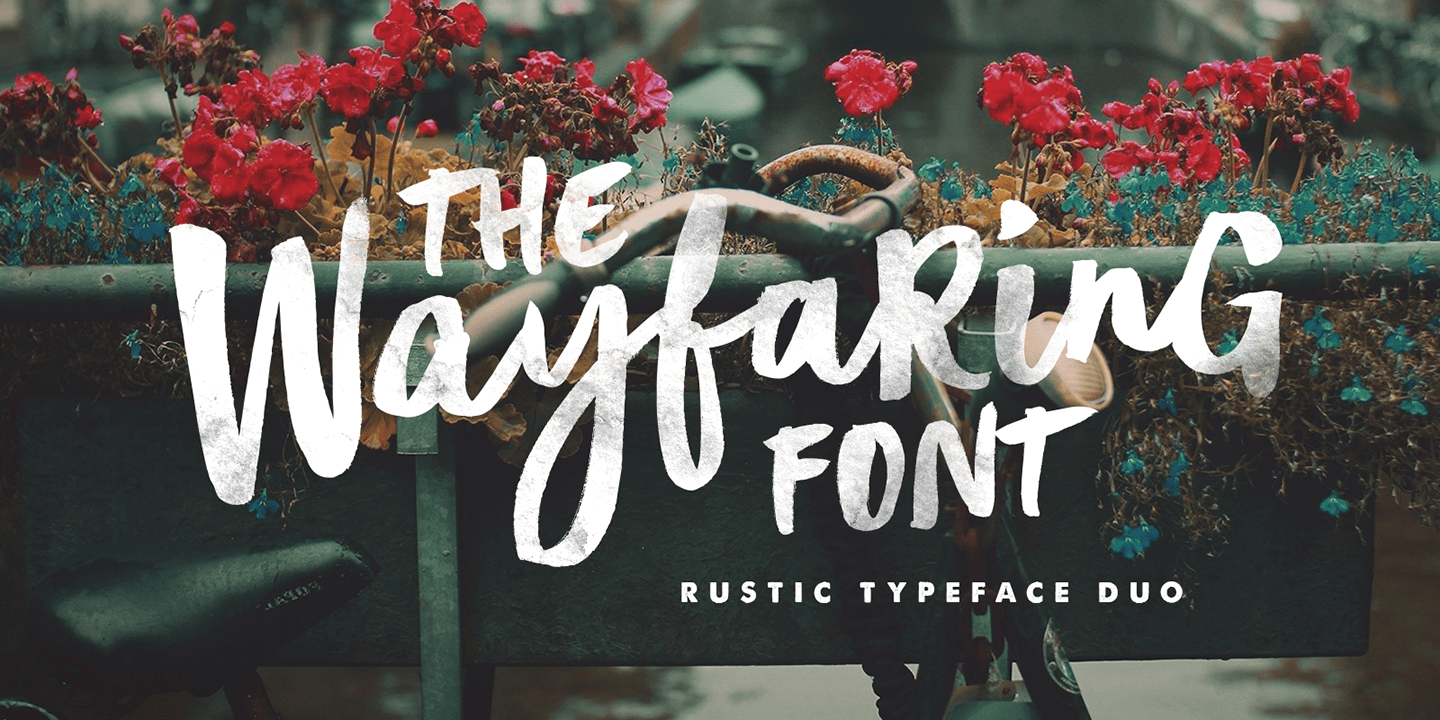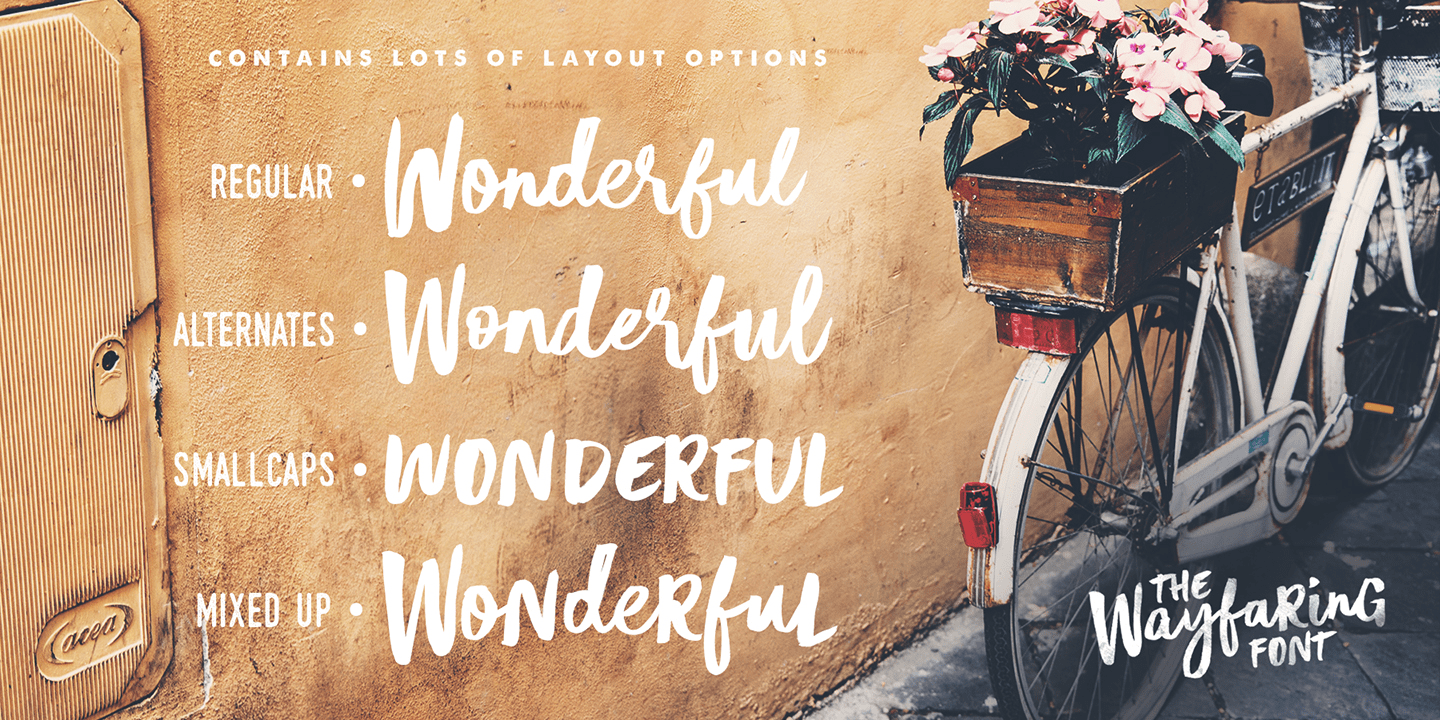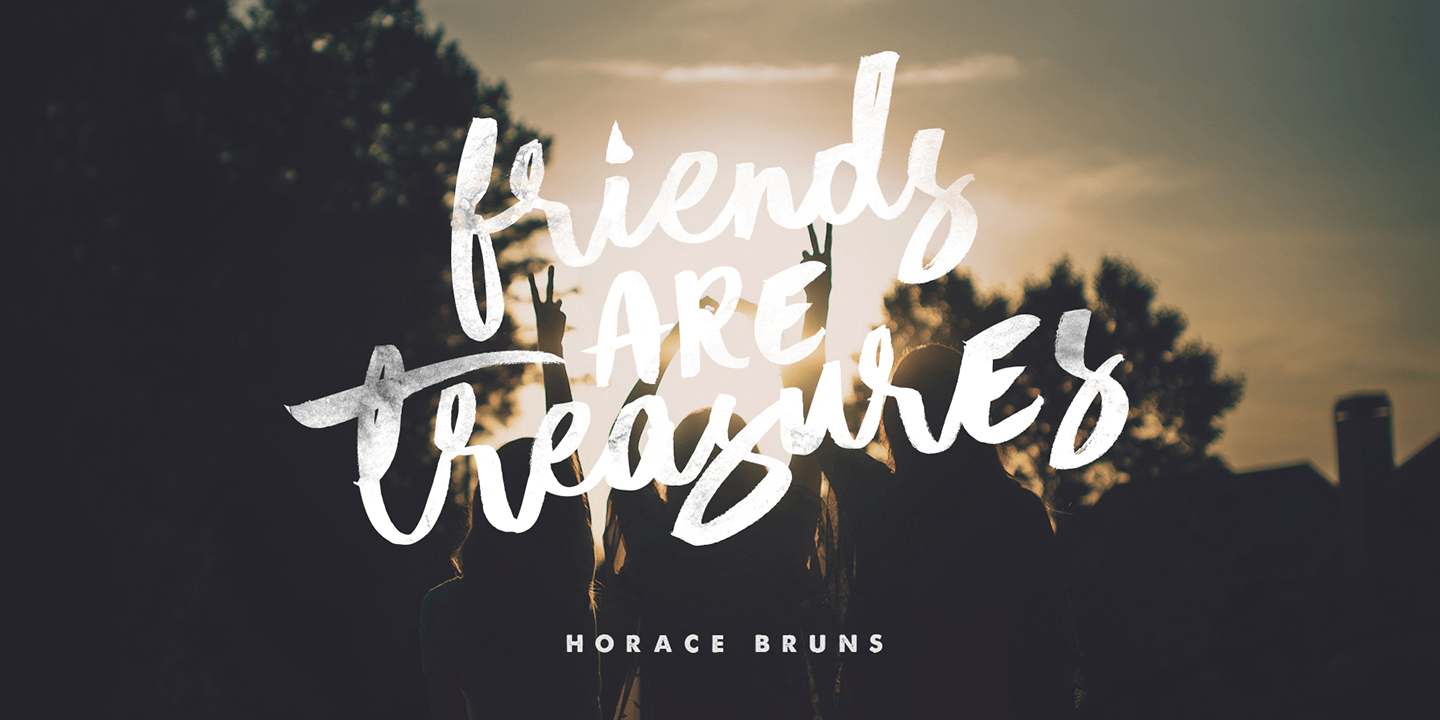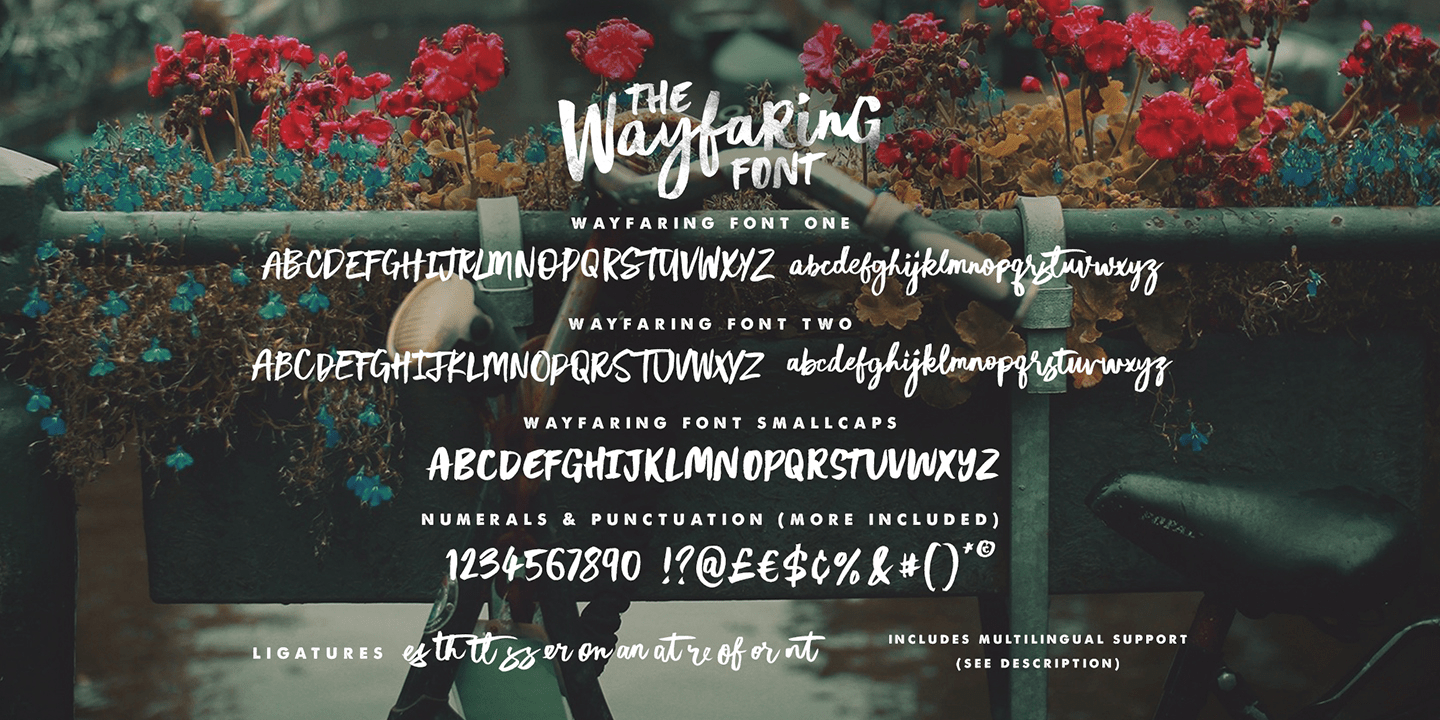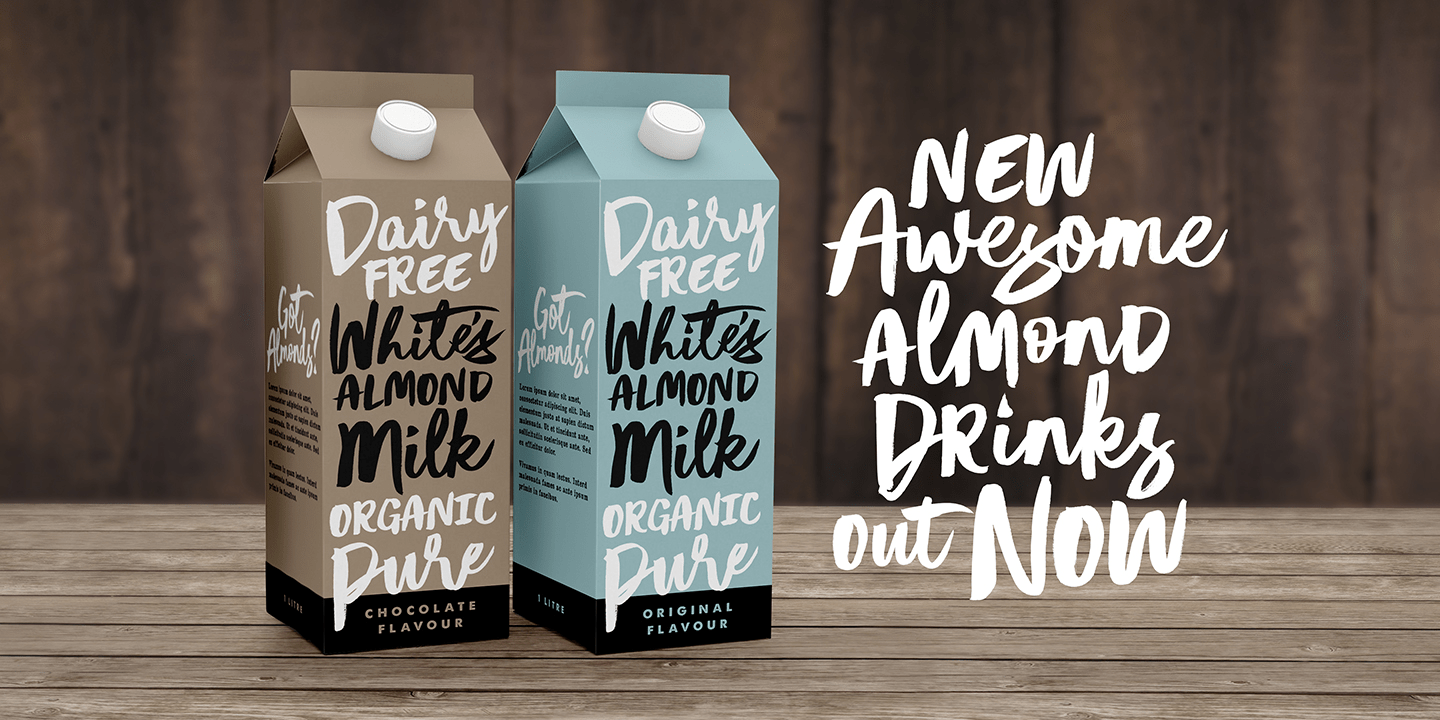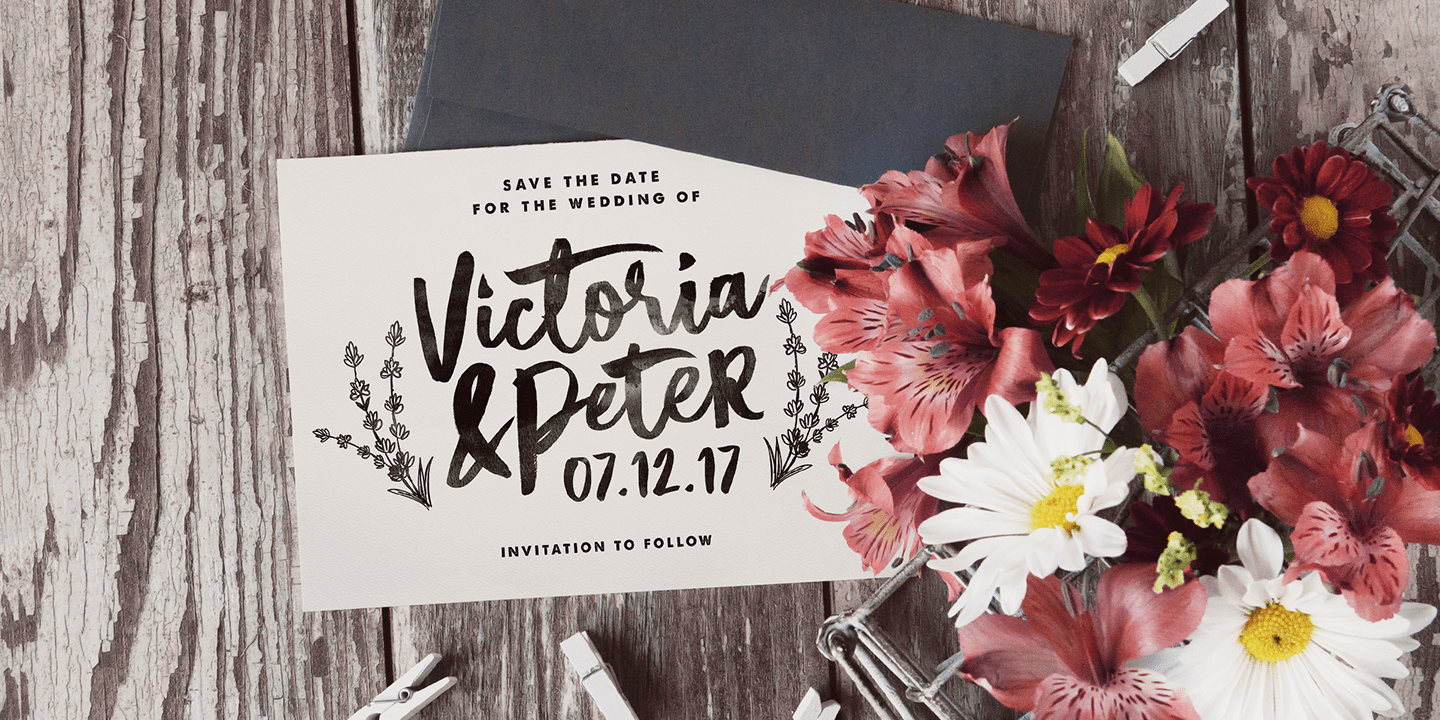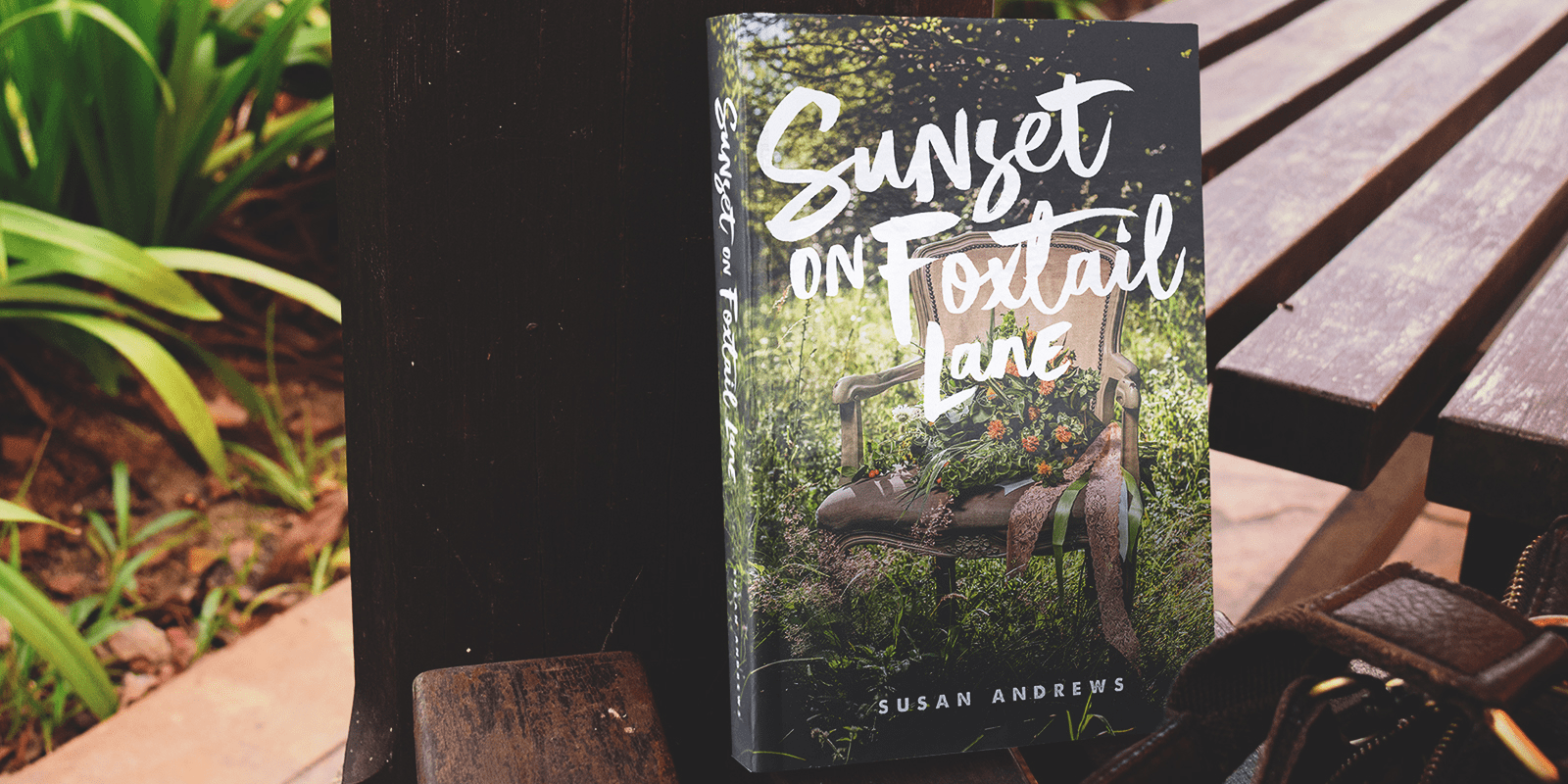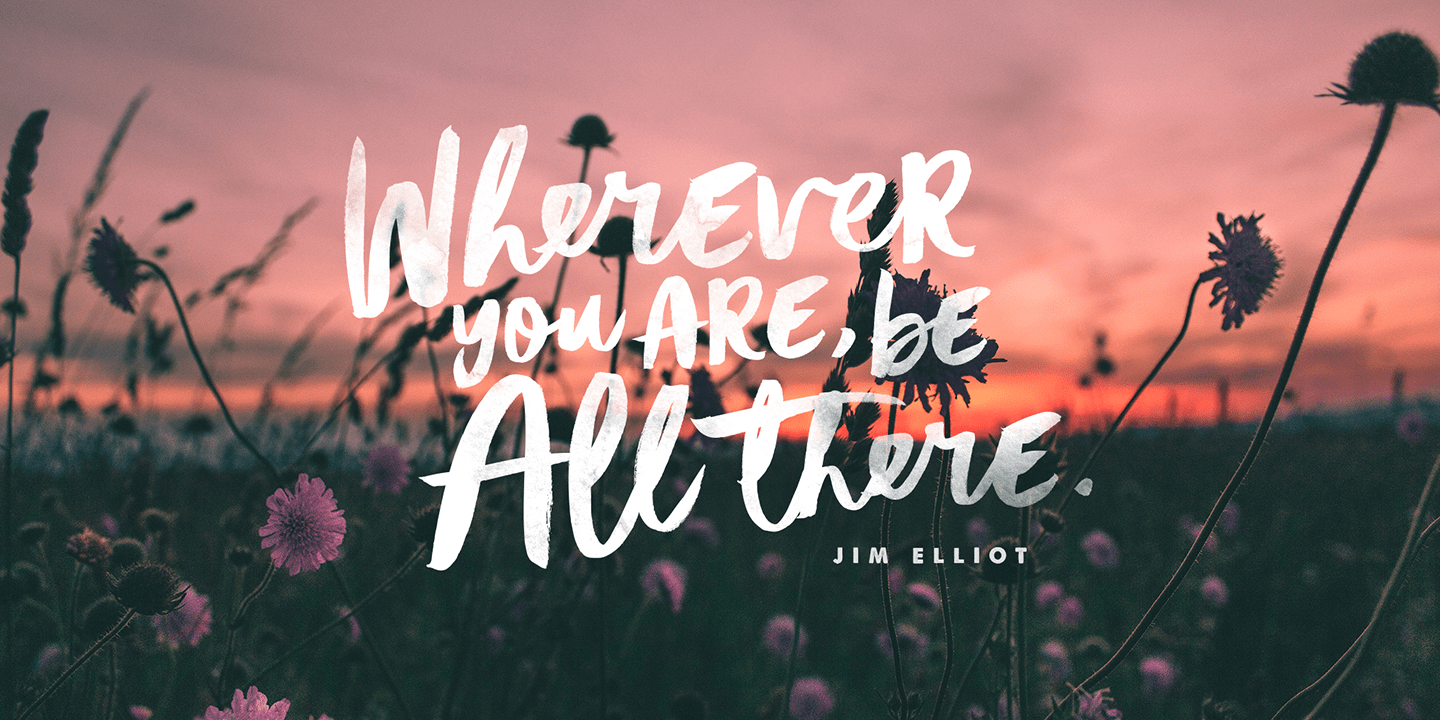
Wayfaring
Wayfaring is a hand-drawn brush script family with a bold, textured look and an easygoing, modern feel. Its rounded forms and expressive strokes give it a casual, organic personality that feels lively rather than polished, making it a strong choice when you want lettering with motion, warmth, and a distinctly handmade impression.
Available in 3 styles—Wayfaring One, Wayfaring Two, and Wayfaring SmallCaps—this family gives you a few different ways to build eye-catching display typography. It suits branding, packaging, social graphics, posters, apparel, invitations, and other decorative work where a playful brush script can add character without feeling overly formal.
Created by Set Sail Studios, this family is especially appealing for projects that call for bold strokes, modern calligraphic energy, and an informal handwritten voice.